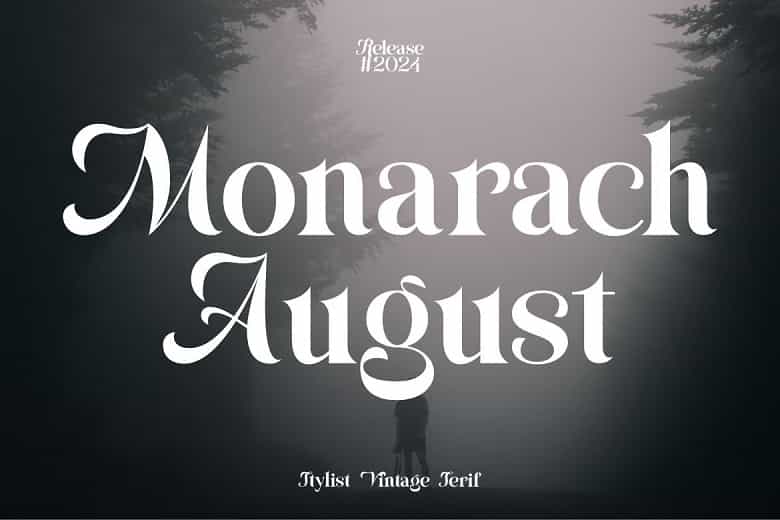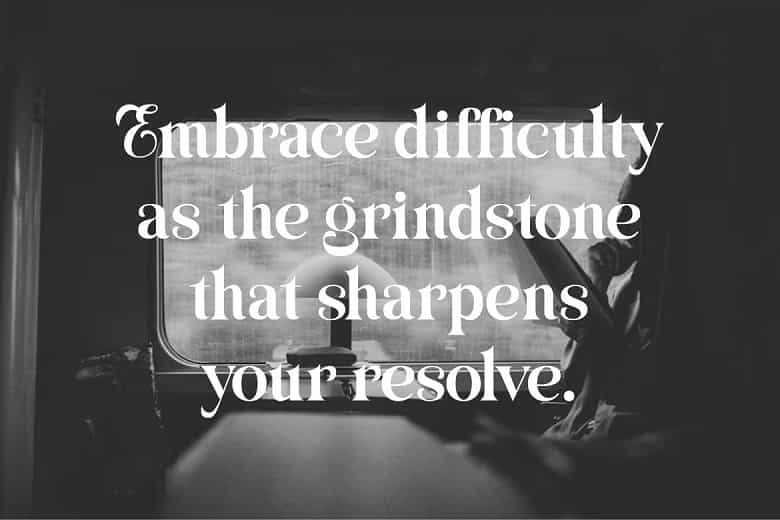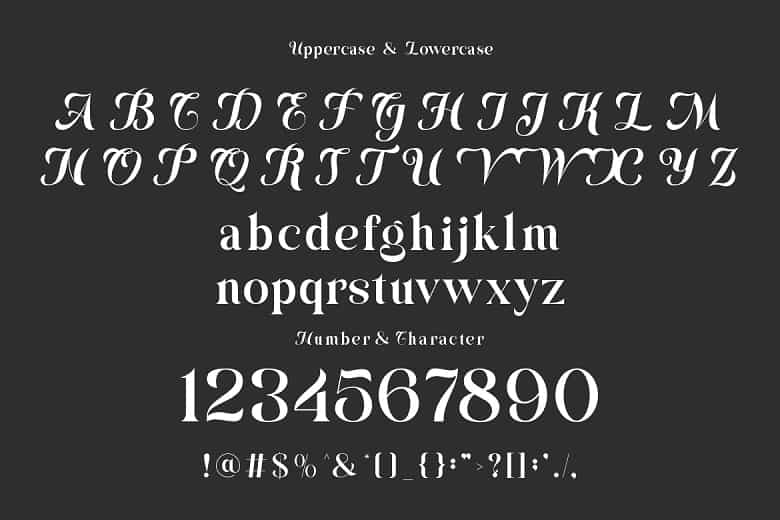
Discover Monarach August Font, part of the Serif collection—a versatile and unique font perfect for adding a personal touch to your projects. Download it for free and enjoy crafting designs with style, from invitations to social media posts. This font is available exclusively for personal use, giving you the freedom to create without limits. Unlock your creativity with Monarach August Font today!
Monarach August Serif Font is perfect for personal branding. The idea behind its creation was that it should be used for building your personal brand. Nevertheless, it does work best for most of the applications. Every aspect of the brand such as personal branding, logos, name tags, handwritten quotes, product packaging, merchandise, social media and greeting cards.